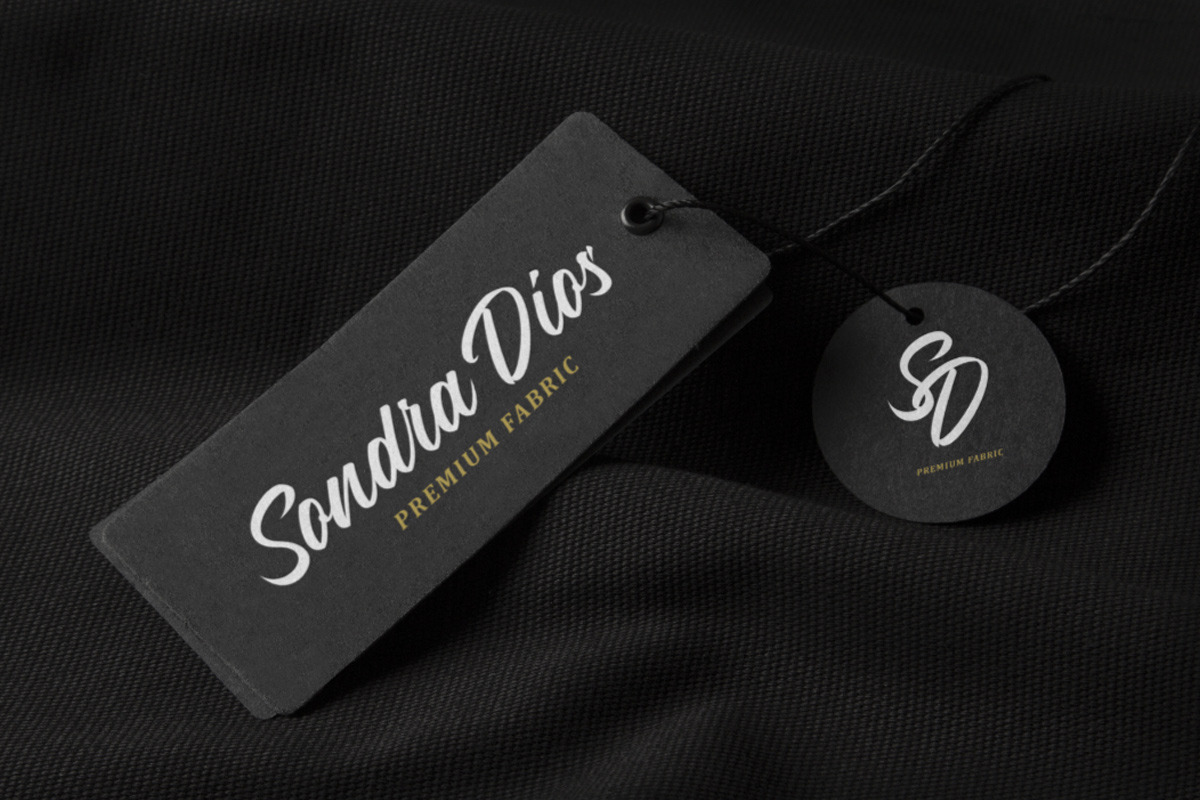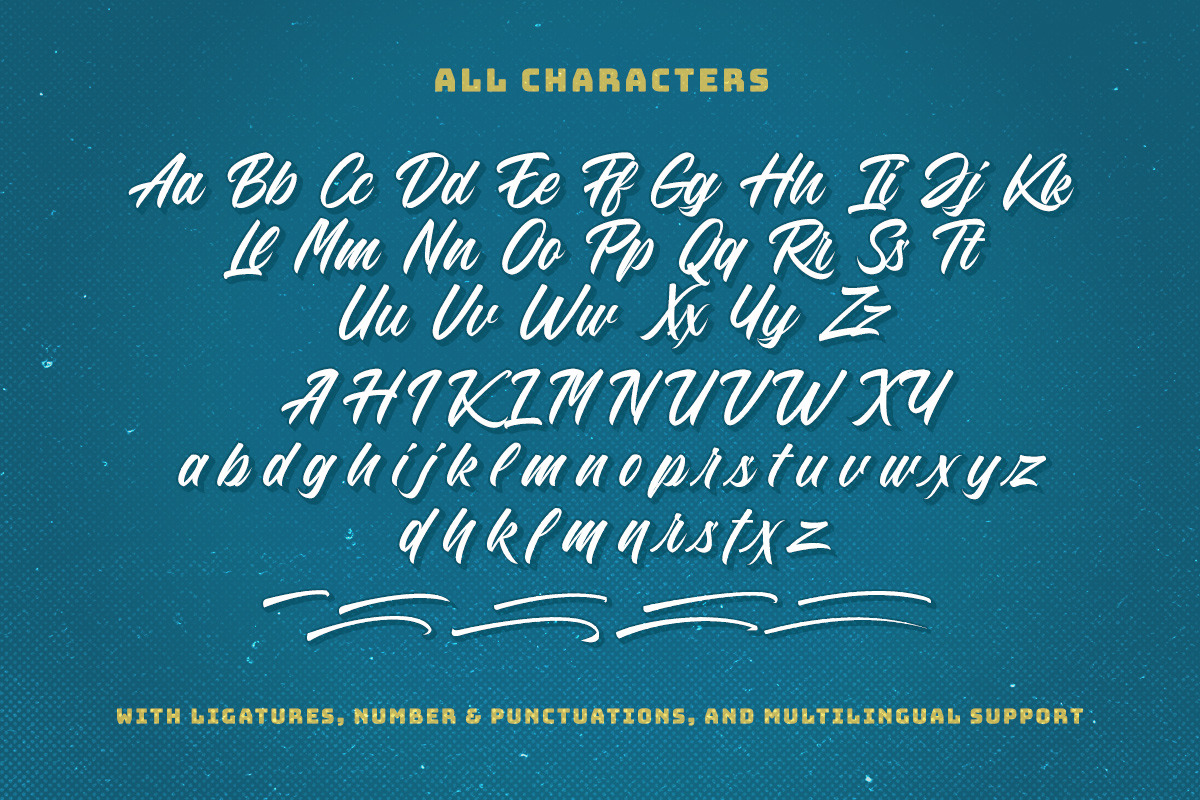
Blue Phantom Script
Introducing, Blue Phantom Script
Blue Phantom Script is a natural handwritten made script which is suitable for you who needs a typeface for headline, logotype, apparel, invitation, branding, packaging, advertising etc. This typeface is comes in uppercase, lowercase, punctuations, symbols & numerals, stylistic set alternate, ligatures, etc also support multilingual and already PUA encoded. Blue Phantom also comes with extrude style font, so you can make a 3D Look a like for your project!
Foreign Languages Support: ÀÁÂÃÄÅÇÈÉÊËÌÍÎÏÐÑÒÓÔÕÖØÙÚÛÜÝßàáâãäåæçèéêëìíîïðñòóôõöøùúûüýÿ